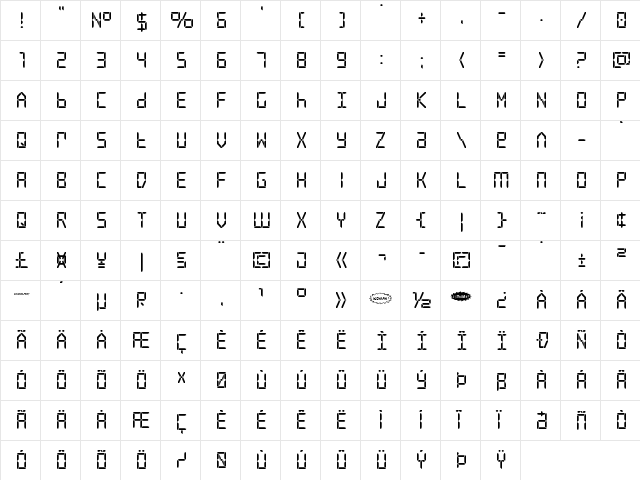
Frozen Crystal Straight Regular Font Preview
Frozen Crystal Straight Regular
Frozen Crystal Straight Regular Font Details
Design Context for Frozen Crystal Straight Typeface
Frozen Crystal Straight is a composed and adaptable typeface that performs quietly and consistently across a wide range of design contexts.